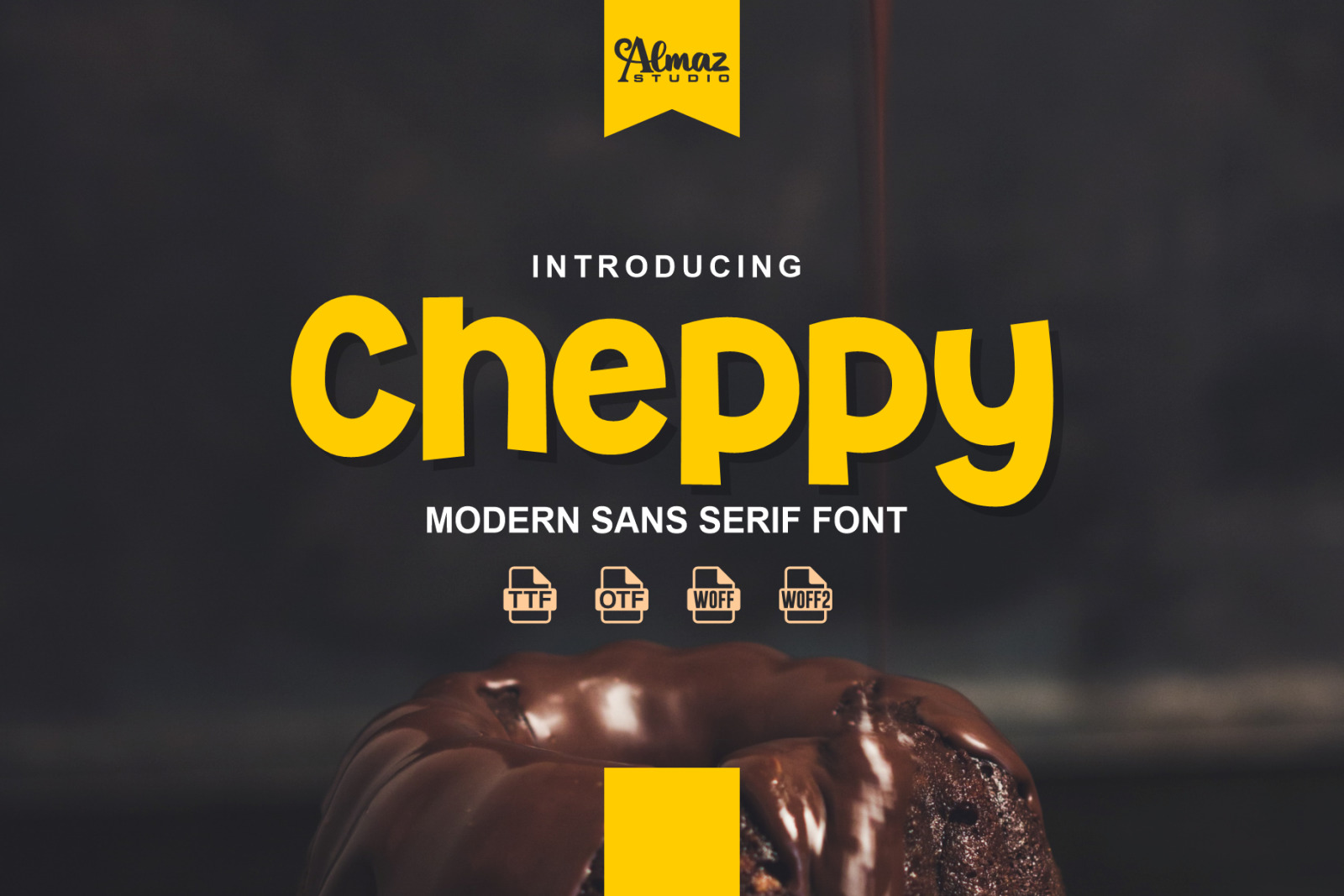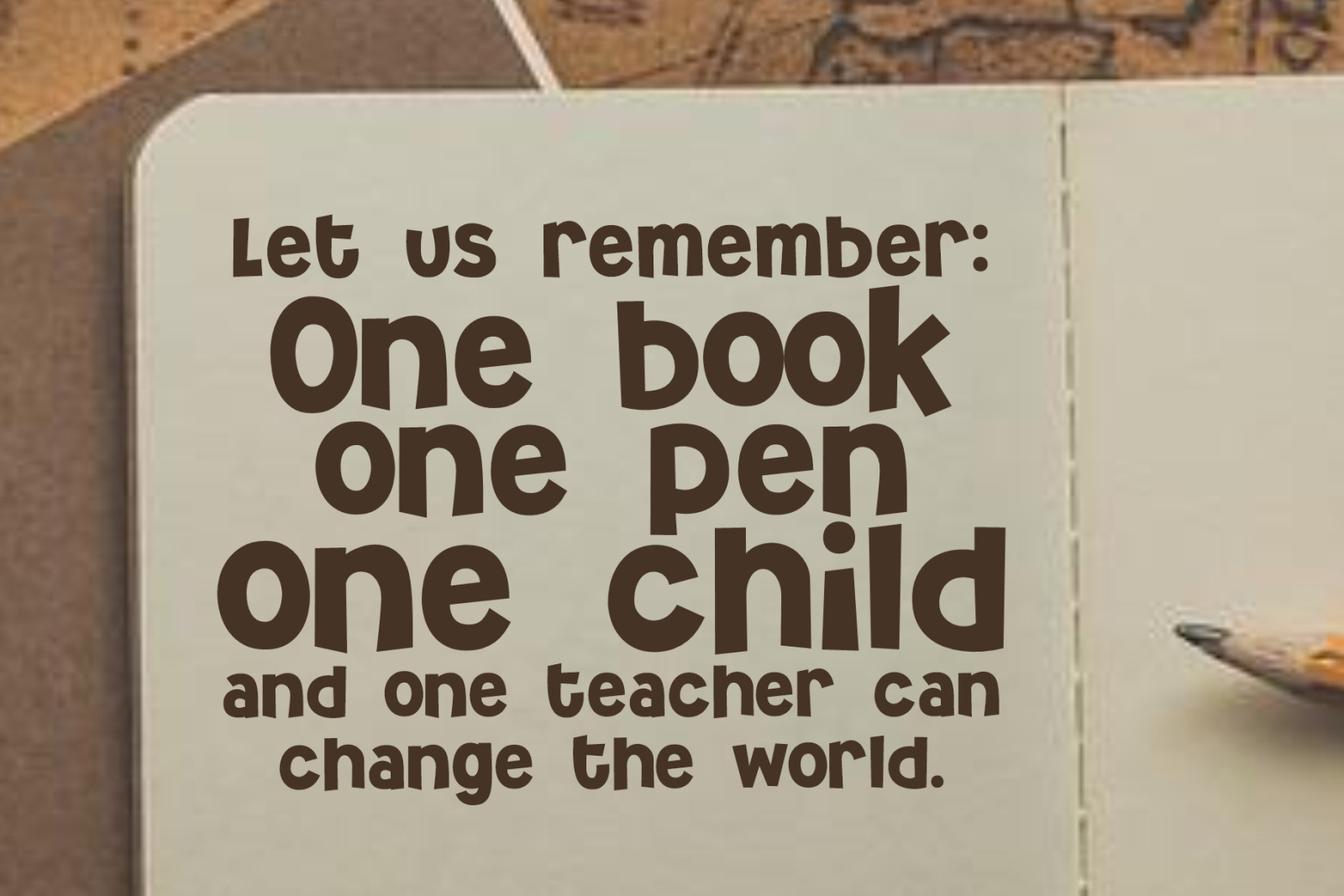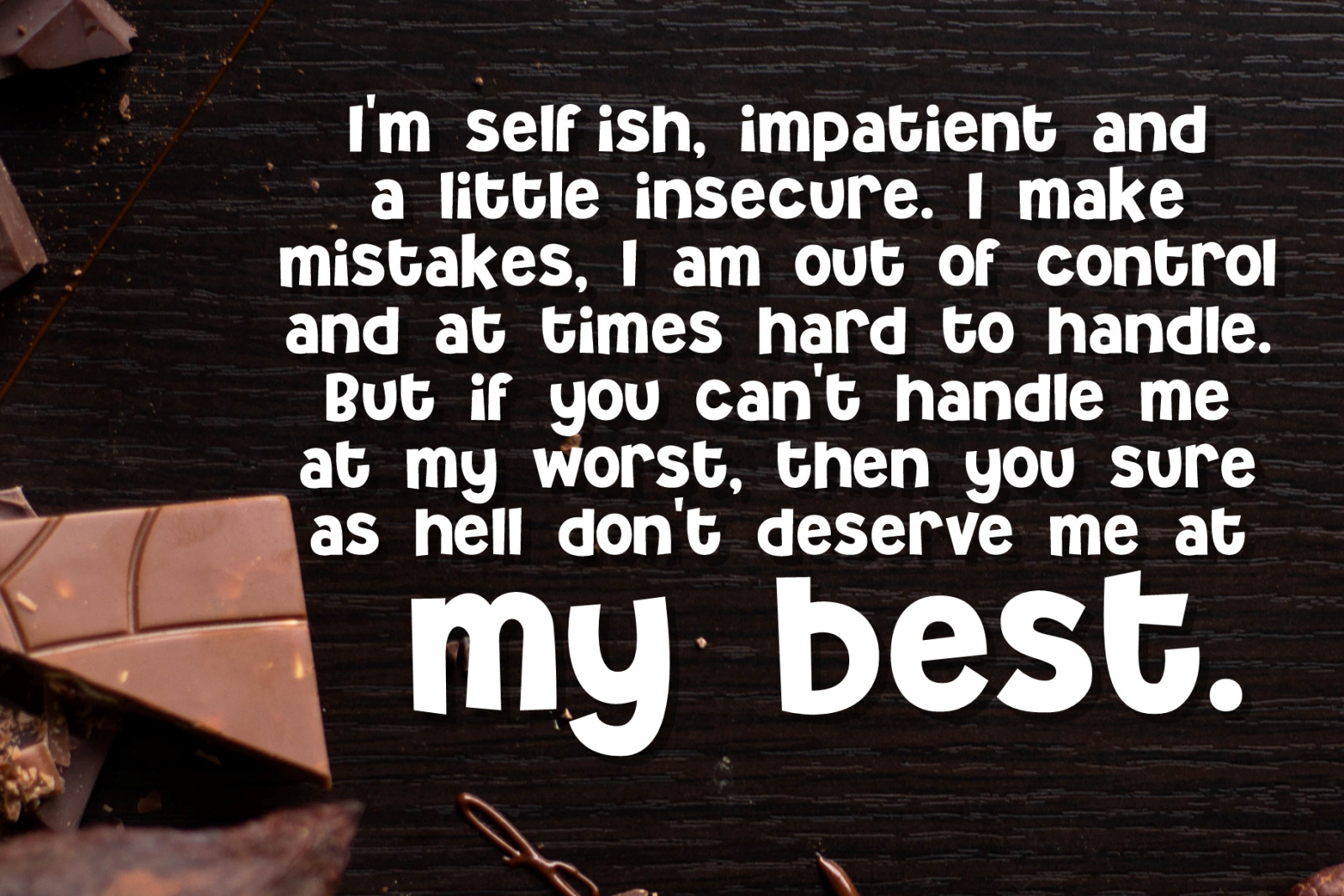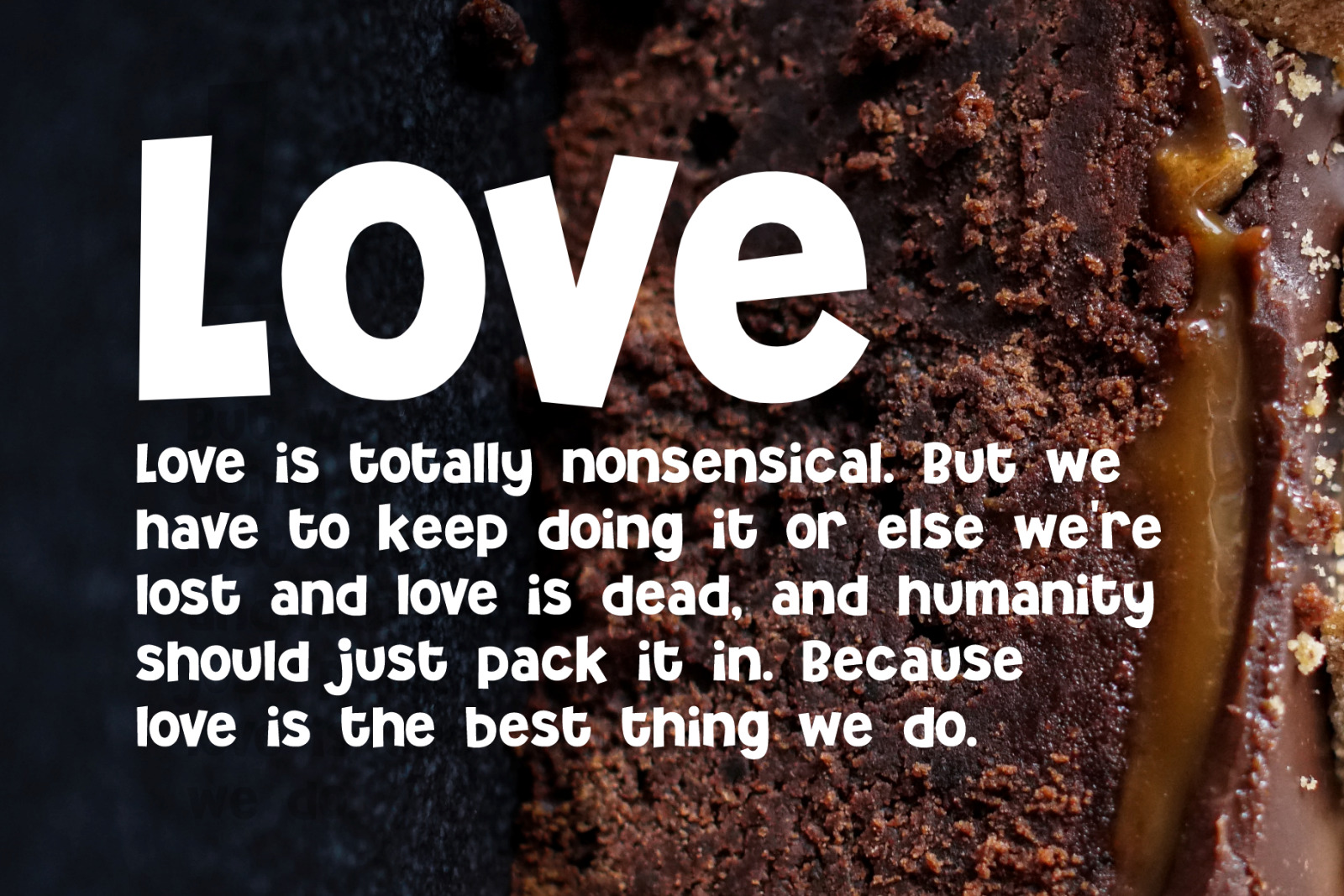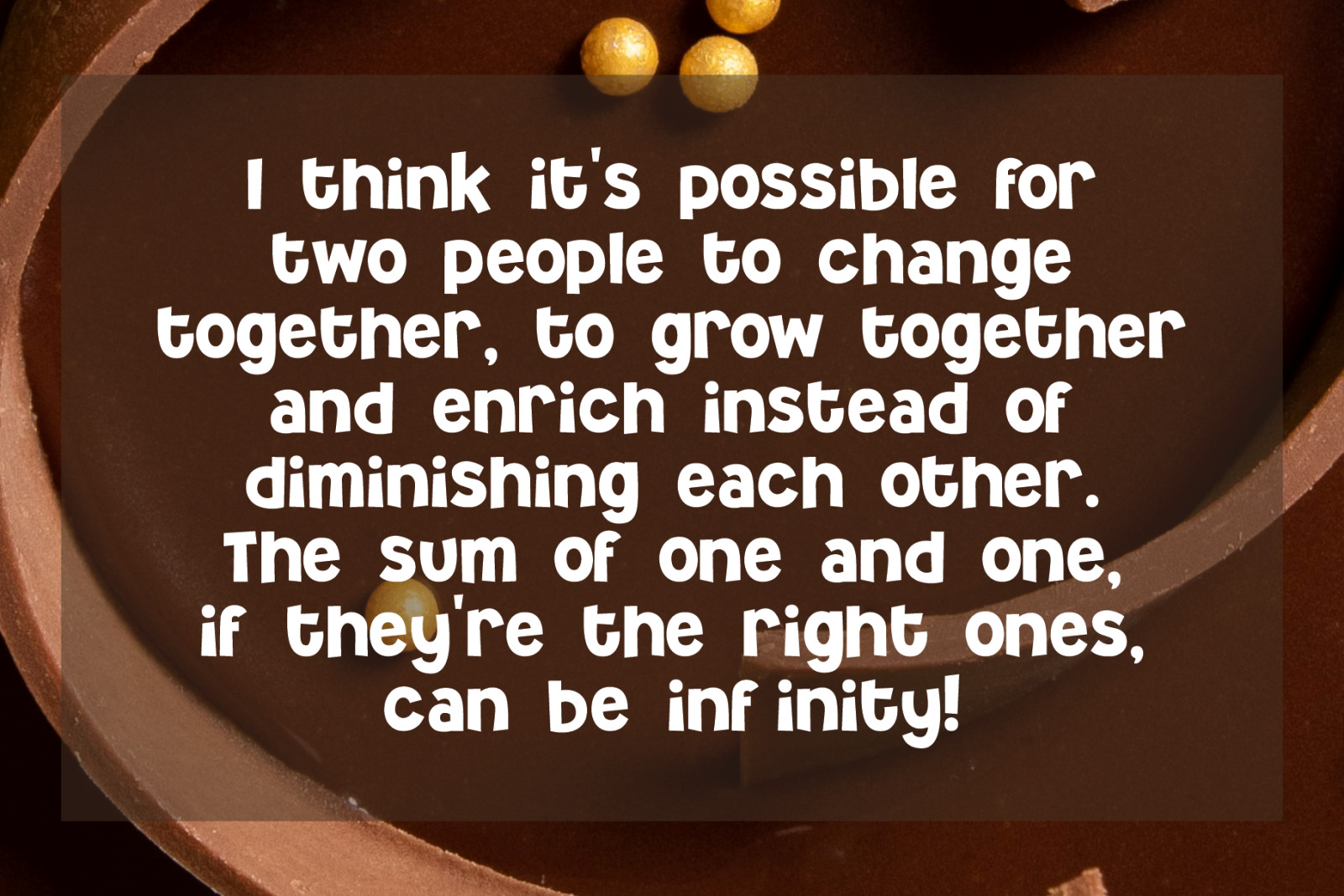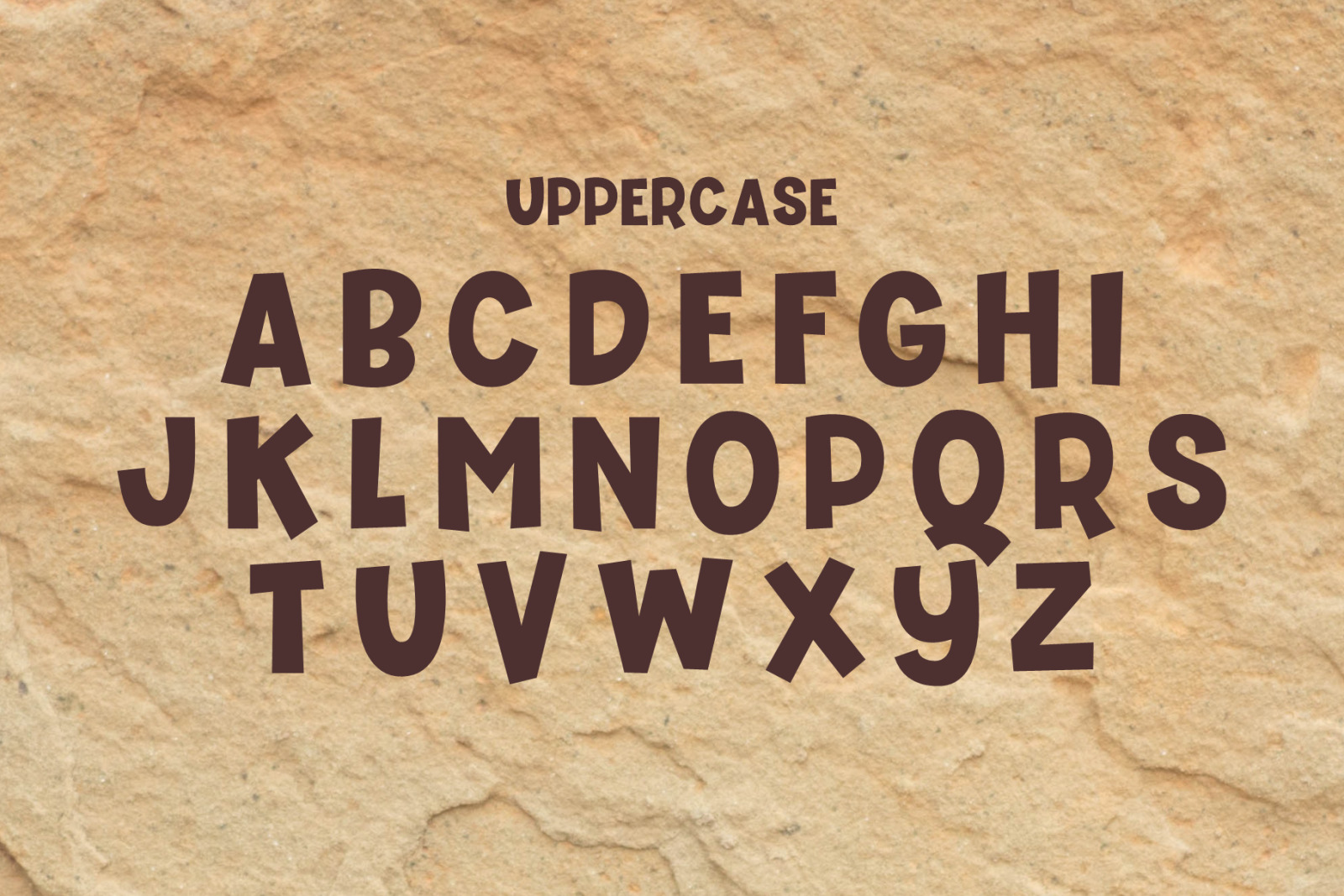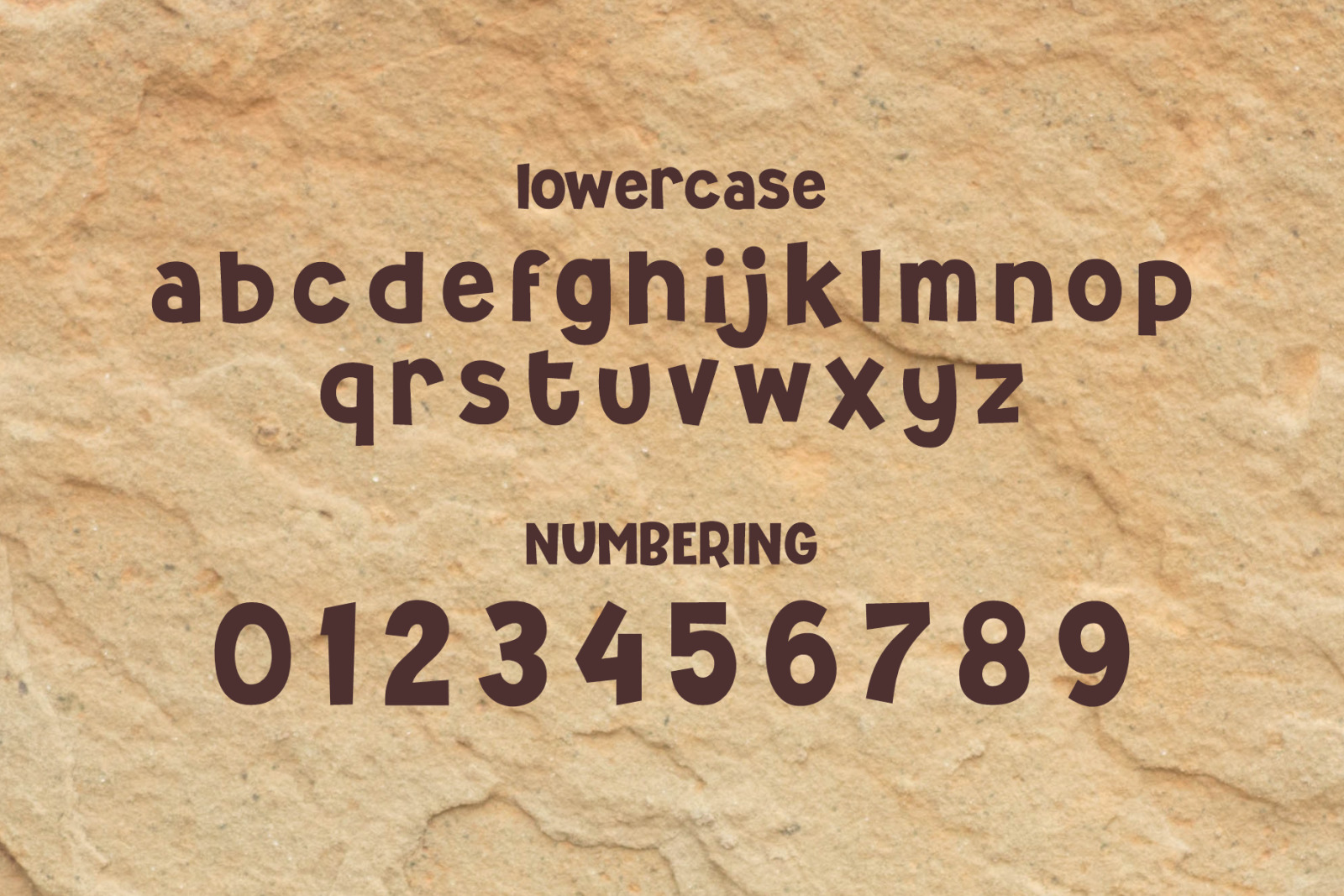
Cheppy Font
Cheppy font is perfect for those of you who want the style of children. Fonts Made specifically for purposes such as: Kindergarten, Birthday, Kid, Cartoon, Comic, Children, and Playful. This Font contains Modern, Elegant, Creative, Professional and Unique Concept. Cheppy font is a minimalist fancy comic font. Cheppy clean lines and sharp edges make it a perfect sans the different weights make it a stellar option for branding and web use looks really beautiful with condensed spacing as well. Cheppy It’s a fun and thick lettered display font. I really hope you will enjoy using the Cheppy font and that it will be the perfect addition to your font collection!